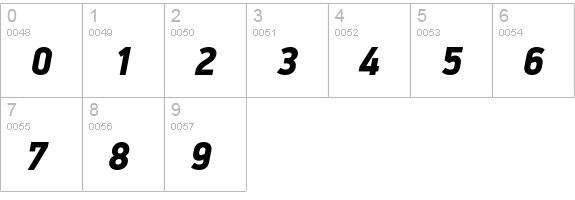
PFDinDisplayPro-BlackItalic is a bold and striking font that exudes elegance and sophistication. The sleek italicized design of this typeface adds a touch of modernity and flair to any project. Perfect for creating eye-catching headlines, titles, and branding materials, PFDinDisplayPro-BlackItalic commands attention with its strong presence on the page. The best part? This stunning font is available for free download at FontsMarket.com. Now you can enhance your designs with this premium quality typeface without breaking the bank. Don't miss out on the opportunity to elevate your projects with the distinctive style of PFDinDisplayPro-BlackItalic. Download it now and let your creativity shine!